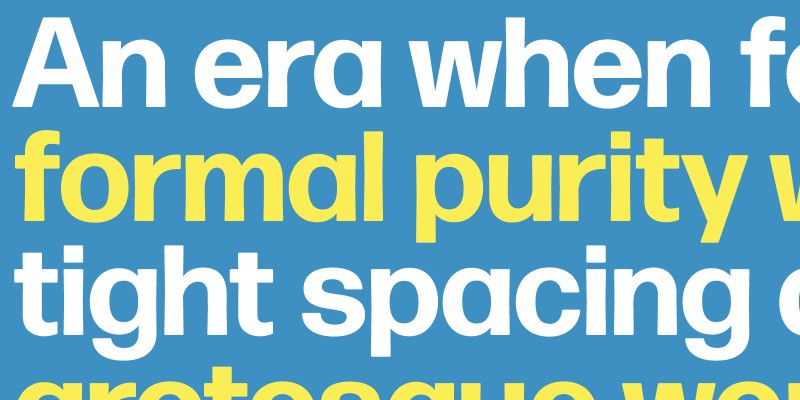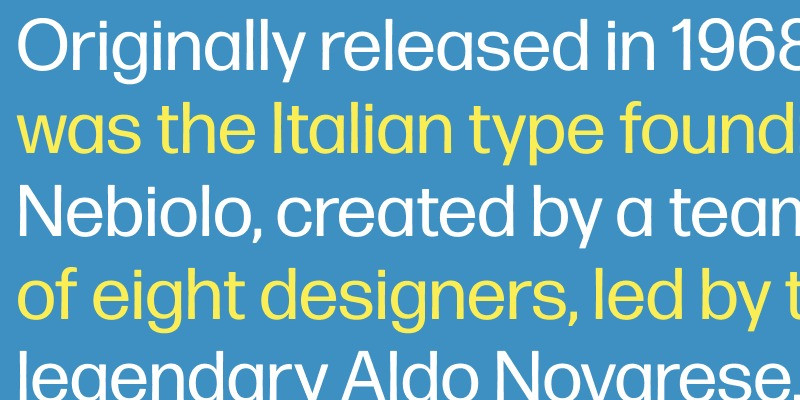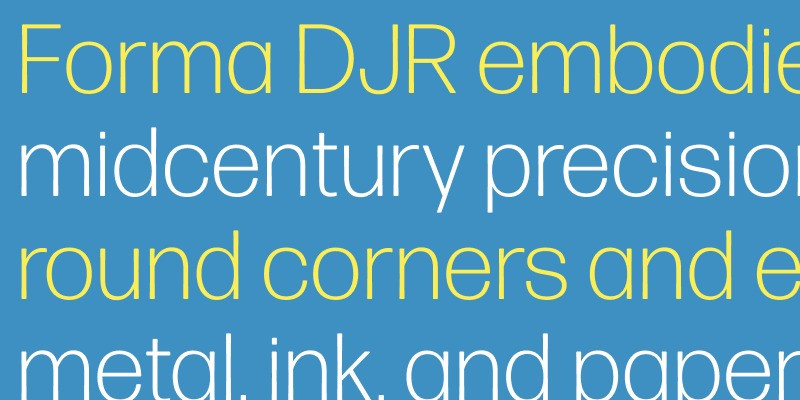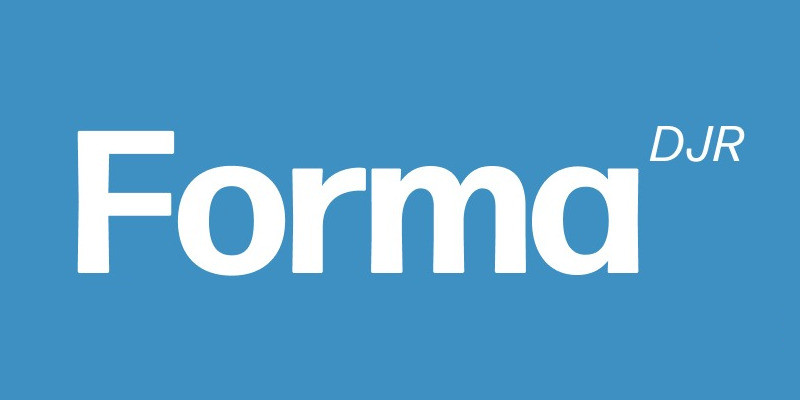
Forma Font Family
Forma Sans Serif Font is a beautiful geometric sans serif typeface with masterclass design and outstanding usability features. Originally released in 1968, Forma was the Italian type foundry Nebiolo’s answer to Helvetica. It was created by a team of eight designers, led by the legendary Aldo Novarese, that Nebiolo assembled to design a more mature and humane neo-grotesque. As a result, Forma’s rationality is tempered by its warmth, and its trademark single-story a sets it apart from the rest.
Issued in metal over a decade after Helvetica and Univers, Forma was relatively late to the neutral sans serif game. It never made the jump to phototypesetting and virtually disappeared after Nebiolo closed its doors in 1978. However, publications designer Roger Black always continued to admire the design, and in 2013 asked me to revive it for his redesign of Hong Kong Tatler magazine.